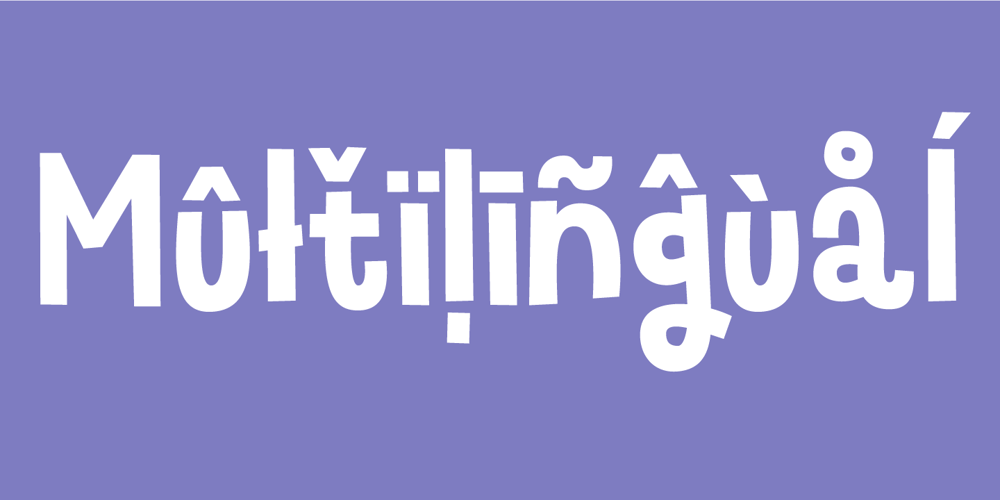
Dancing Fool Font Family was designed by Jakob Fischer and published by PizzaDude.dk. Dancing Fool contains 2 styles and family package options. A Dancing Fool is not always meant as a positive thing – but in this case it is 100 percent positive and innocent. It’s just about someone who is dancing in a foolish way. A good way to describe this font, because it is silly looking, but not in any offensive way!